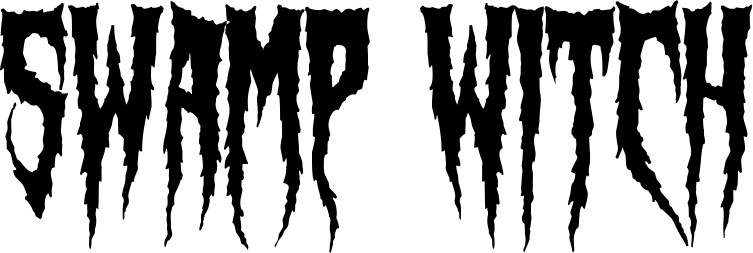
Swamp Witch Font
Swamp Witch font is one of the scariest fonts we have ever presented. This font is recommended for those who like vampires and tattoos style. Add blood drops, spider webs, and animals like spiders and bats to these sharp characters to turn them into a super scary Halloween flyer.
This free death metal font does not have any lowercase letters, so use uppercase letters and numbers instead in scary movies, and video game titles.
Swamp Witch Font by Chad Savage
This font is intended for specialty and graphic uses. It will look just awful if used in a paragraph format.